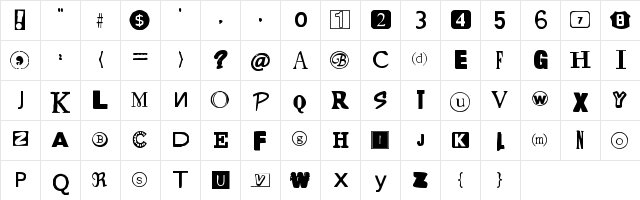
Yet Another Ransom Note Regular
Design Context for Yet Another Ransom Note Typeface
Yet Another Ransom Note is a composed and adaptable typeface that performs quietly and consistently across a wide range of design contexts.